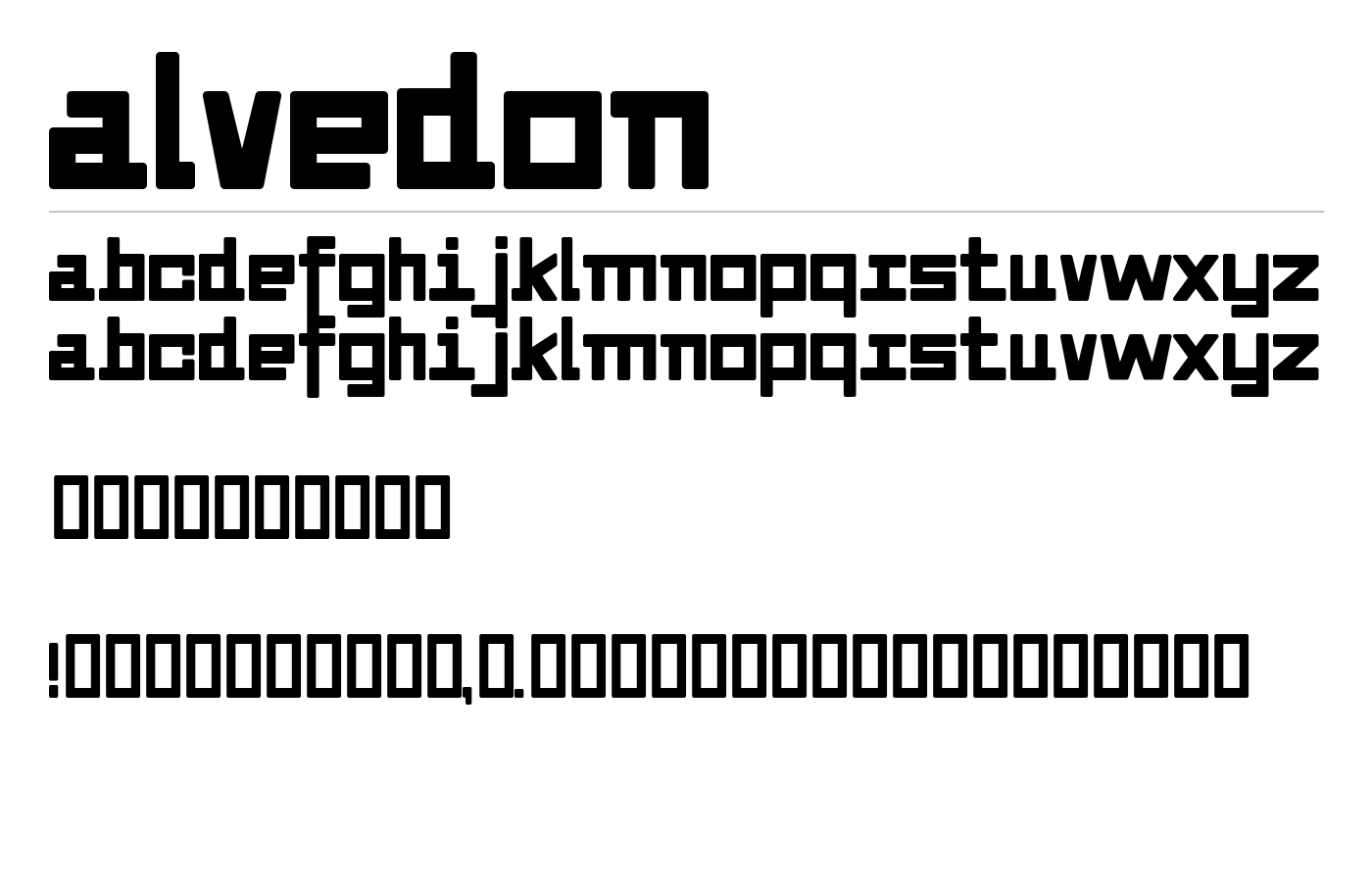
Alvedon is a bold, geometric sans serif font with a strong, blocky appearance and uniform stroke weight that gives it a sturdy, modern feel. Its squared letterforms and mechanical style make it ideal for branding, headlines, or digital interfaces where impact and clarity are key. This font works best in tech, gaming, or industrial design contexts, communicating strength and precision.
Alvedon Font
About Alvedon Font